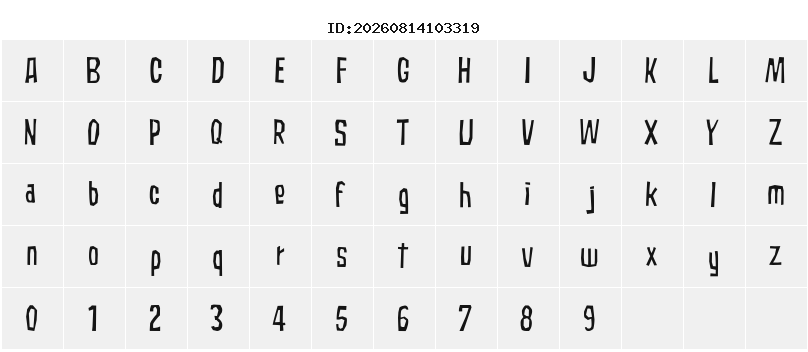
Subaccuz Preview
About Subaccuz.ttf
Subaccuz.ttf is a modern, elegant sans-serif font designed for ultimate readability and visual harmony. Perfect for branding, headlines, web design, and print materials.